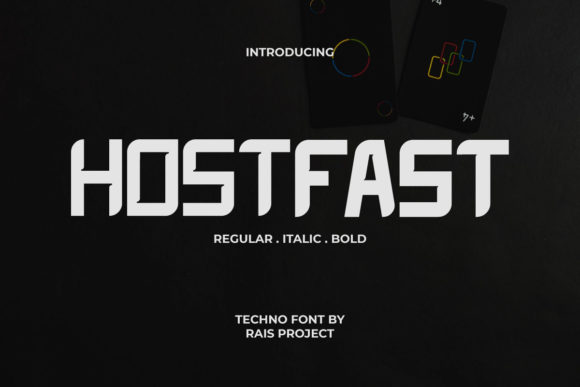
Journey into the realm of typographic brilliance with Hotfast, the display font that radiates boldness and futurism. Crafted by the visionary RaisProject, Hotfast is a font that transcends the ordinary, captivating audiences with its striking appearance and versatility.
Unleash your creativity and let Hotfast ignite your branding projects with a spark of innovation. Imagine your logos adorned with Hotfast's distinct techno aesthetics, captivating attention and leaving an unforgettable impression. Elevate your t-shirt designs with Hotfast's bold strokes, turning ordinary garments into wearable works of art. Embark on creative endeavors with Hotfast as your trusted companion, transforming your ideas into tangible masterpieces.
Hotfast's versatility extends beyond mere aesthetics. Its boundless applications make it the perfect font for a myriad of projects, regardless of your creative vision. Whether you seek to craft eye-catching headlines that demand attention or desire a font that complements your creative products, Hotfast stands ready to elevate your designs to new heights.
With Hotfast, you're not merely downloading a font; you're embracing a transformative power that will redefine your creative journey. Its bold strokes and futuristic charm will infuse your projects with a captivating energy, leaving a lasting impact on your audience.
Experience the Hotfast phenomenon and witness how a font can ignite your creativity and propel your designs to unprecedented heights. Embrace the future of typography with Hotfast, and let your imagination soar to new horizons.